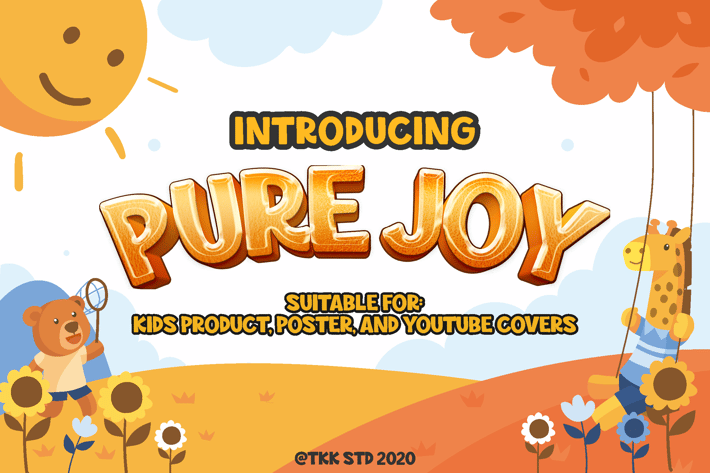
Pure Joy - all cap Funny Display font
Pure Joy - all caps happy font
Pure Joy is a rounded kids display font that brings lighthearted energy to every word with its soft curves, gentle proportions, and cheerful bounce. Designed for learning materials, toy packaging, and happy branding, this typeface radiates youthful charm without being overly childish. The letterforms are geometric and friendly—making them highly legible even for early readers.
It captures a fun and modern vibe that’s ideal for children’s books, kindergarten posters, birthday cards, and anything aiming to connect emotionally with young audiences or parents. Its smooth, plump structure makes it safe, joyful, and easy to love.
Whether you're creating YouTube thumbnails for preschool channels, crafting product labels for healthy kids’ snacks, or designing early education posters, Pure Joy delivers the perfect tone. Its lively appearance creates emotional resonance with families, educators, and brand marketers who want to evoke feelings of trust, warmth, and happiness.
If your project needs to say “fun, friendly, and easy to understand,” Pure Joy will do the talking—loud and clear.
Key Features
✔ Friendly & Approachable
- Rounded edges and soft forms make it ideal for toddler to elementary-age materials.
✔ Versatile in Use
- Great for posters, social media, food packaging, school signs, and animated content.
✔ Child-Centered Design
- Each letter is crafted for visual comfort—legibility for young readers is key.
✔ Joyful Character
- Great for expressing positivity, fun, and playful creativity in any branding.
Give your next children-focused project the smile it deserves with Pure Joy. Perfectly tailored for creators, educators, and kids brands alike, this typeface makes designs sparkle with fun and friendliness. Don’t wait—bring joy to your visuals today with a font that’s built for young eyes and happy vibes.